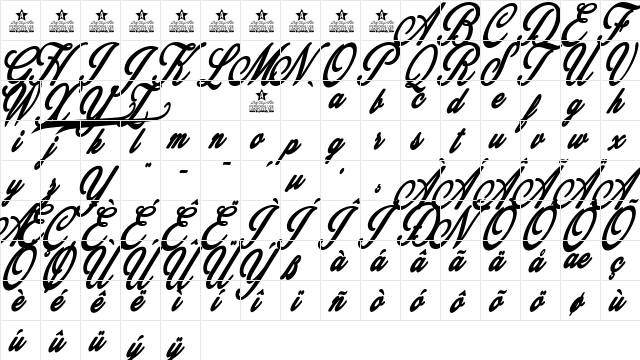
Gingerale Personal Use Regular
| Foundry | Billy Argel |
| Designer | Billy Argel |
Design Context for Gingerale Personal Use Typeface
Gingerale Personal Use is a composed and adaptable typeface that performs quietly and consistently across a wide range of design contexts.